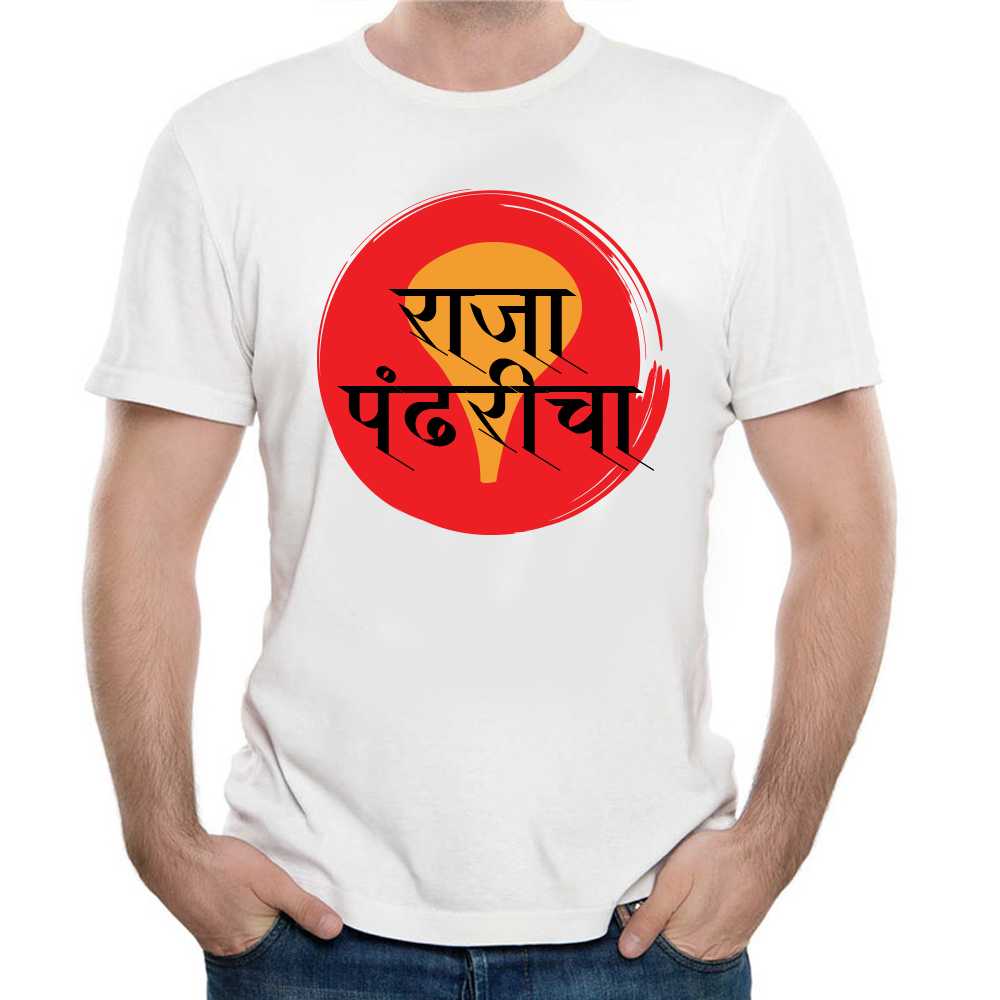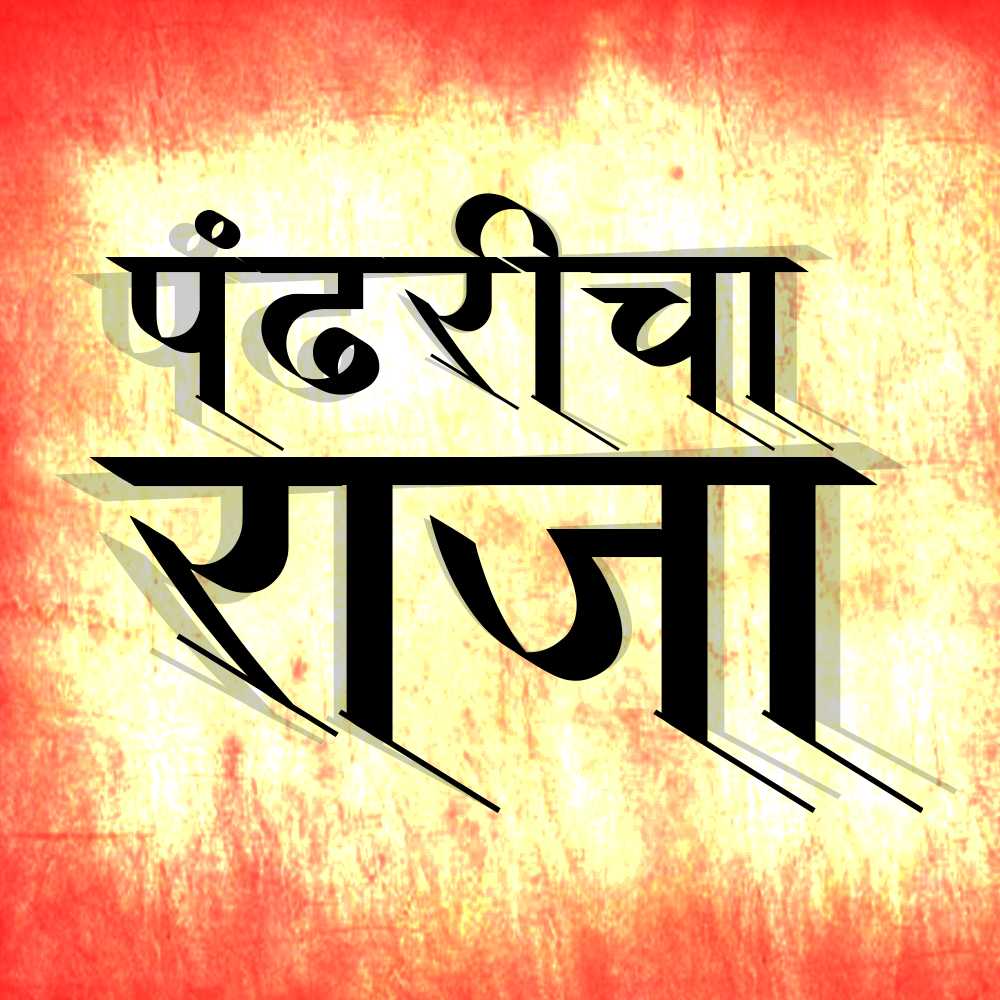
AMS Calligraphy 2
AMS Calligraphy 2 allows you to infuse your Hindi and Marathi creations with the timeless allure of calligraphy. Experience the artistry and precision of this exquisite font and watch as it transforms your designs into visual masterpieces.
About AMS Calligraphy 2 Font
AMS Calligraphy 2 allows you to infuse your Hindi and Marathi creations with the timeless allure of calligraphy. Experience the artistry and precision of this exquisite font and watch as it transforms your designs into visual masterpieces. This calligraphy font combines elegance with functionality, making it perfect for various design applications.
AMS Calligraphy 2 is a professionally crafted calligraphy typeface that brings clarity and style to your projects. Designed with attention to detail, it supports hindi and marathi characters flawlessly.
Whether you're working on invitations, logos, posters, or other creative projects, AMS Calligraphy 2 delivers consistent performance across both digital and print media. This carefully designed typeface ensures readability and visual appeal in all your design work.
About AMS Calligraphy 2 Typography Style
AMS Calligraphy 2 is a professionally crafted calligraphy font that exemplifies modern Hindi typography design. This free font is perfect for designers seeking professional branding and logo design projects.
Available in 1 weight and supporting hindi, marathi scripts, AMS Calligraphy 2 offers exceptional versatility for both digital and print media. Whether you're working on invitations, logos, posters, this carefully designed typeface ensures consistent quality and professional results across all your typography projects.